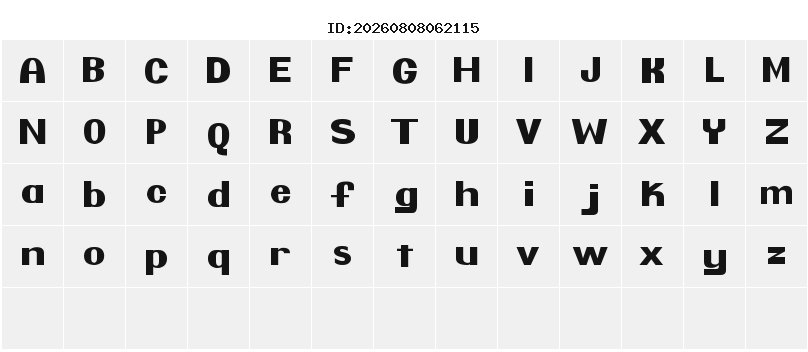
Pretendo Preview
• Font Name: Pretendo
• Designer: High-Logic - Erwin Denissen 1999
• Manufacturer: High-Logic
About Pretendo.ttf
Pretendo.ttf is a modern, elegant sans-serif font designed for ultimate readability and visual harmony. Perfect for branding, headlines, web design, and print materials.